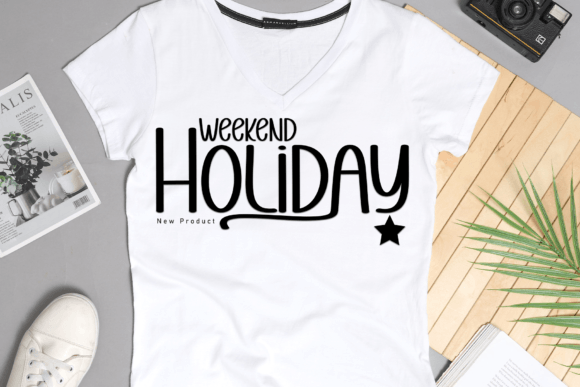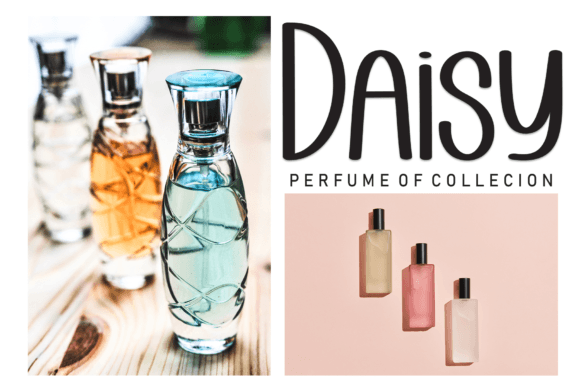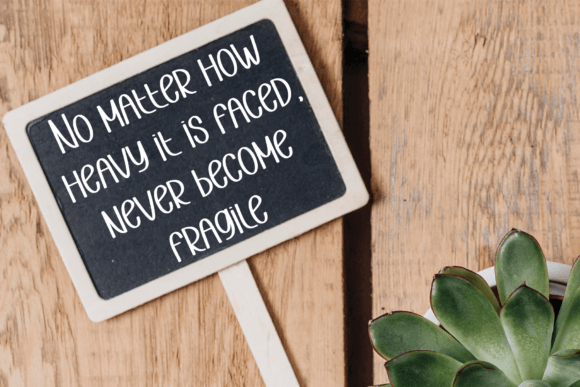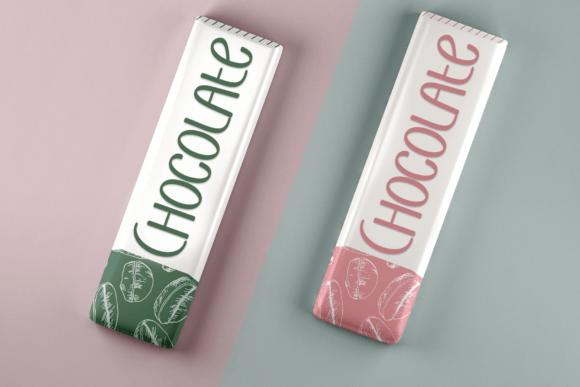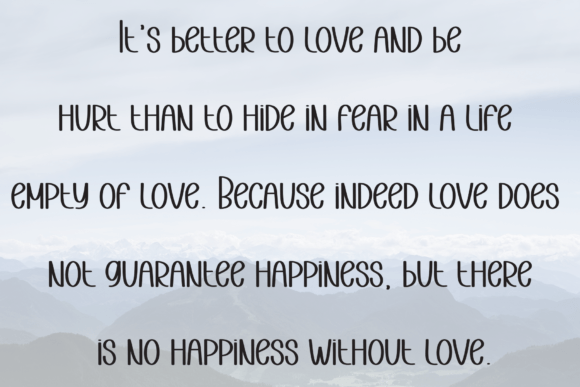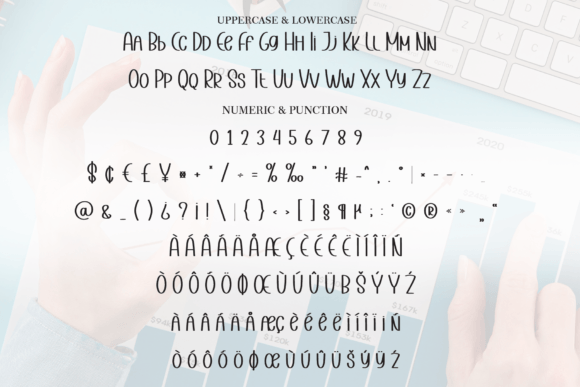
The Power of Efficient Font: Elevate Your Designs with a Friendly Touch
Have you ever been in the middle of a design project, and suddenly, you just can’t seem to find the right font? I recall a particularly frustrating experience while working on a wedding invitation project. My client wanted a font that was both elegant and approachable, but everything I tried seemed either too formal or too quirky. That’s when I stumbled upon the Efficient font, and it completely transformed my design.
A Personal Review: What I Love About Efficient Font
I’m excited to share my honest review of the Efficient font, and here’s what I love about it:
- ✨ Friendly and lovely style: The Efficient font has a warm, inviting feel that’s perfect for creating a connection with your audience.
- ✅ Handwritten charm: Its unique, handwritten aesthetic adds a touch of personality to any design.
- 💻 Encoded PUA Character: No need for additional design software – you can access all the characters directly.
- 🎨 Versatile: Suitable for a wide range of projects, from diary planners and journals to wedding invitations, party decorations, and more.
While the Efficient font is amazing, there are a few minor things to keep in mind:
- 🤔 Occasional kerning issues: As with any font, you might need to adjust kerning for optimal results.
Exploring Alternatives: Similar Fonts to Efficient
The Story Behind Efficient Font
The Efficient font was designed with the intention of creating a friendly, approachable typeface that could be used in a variety of contexts. The designer aimed to craft a font that would add a personal touch to everyday designs, making them more relatable and engaging.
| What is the Efficient font best used for? | The Efficient font is versatile and can be used for a wide range of projects, including diary planners, journals, wedding invitations, party decorations, and more. |
| Is the Efficient font suitable for body text? | While the Efficient font is beautiful, it’s best used for headings or titles. For body text, you may want to choose a more traditional font for optimal readability. |
In conclusion, the Efficient font is a wonderful addition to any designer’s font library. Its friendly, lovely style and versatility make it perfect for a wide range of projects. With its Encoded PUA Character and ease of use on popular platforms, you can bring your DIY projects to life with this beautiful font.